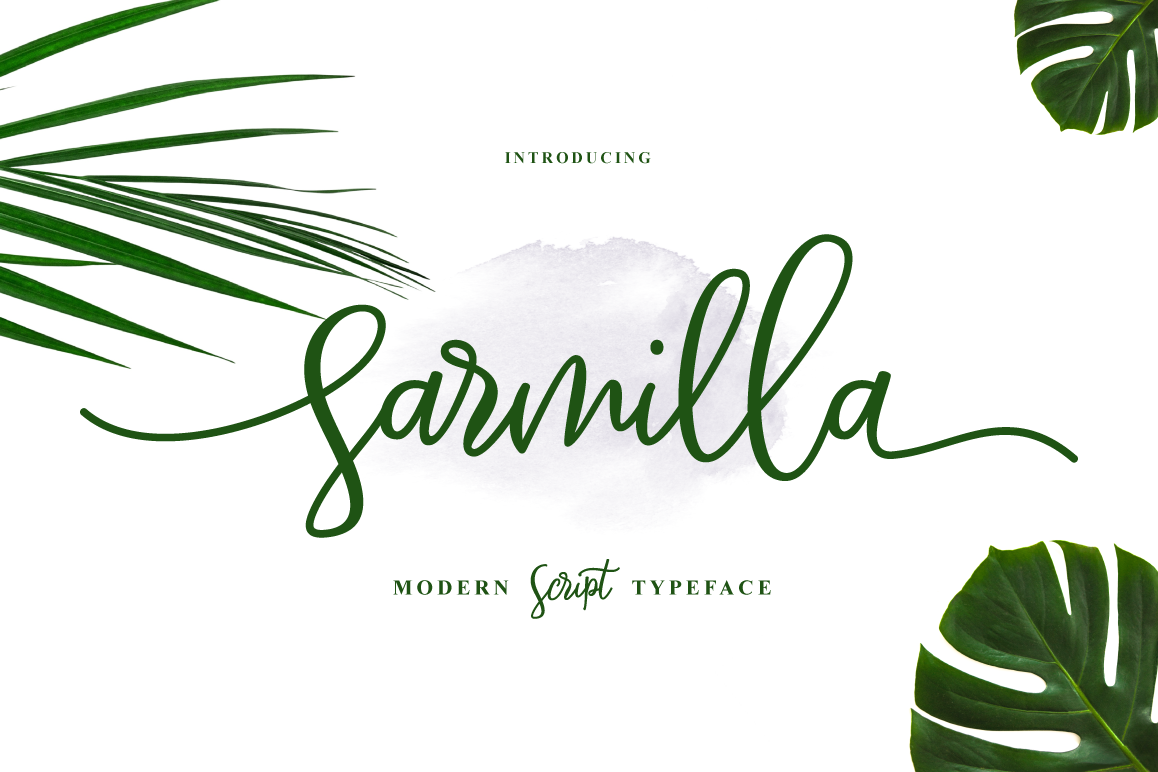
Sarmilla Script
Sarmilla Script is a new fresh & natural script font with a handwritten style.This font comes to give a natural feel for the designer in working on various projects, So Perfect and beautiful on invitation like greeting cards, branding materials, business cards, quotes, posters, Logos, Greeting Cards, Wedding Stationery, and more!Sarmilla Script come with 400 glyphs +. The alternative characters were divided into Several Open Type features such as Swash, Stylistic Sets, Stylistic Alternates, and ligature. The Open Type features can be accessed by using Open Type savvy programs such as Adobe Illustrator, Adobe InDesign, Adobe Photoshop Corel Draw X version, And Microsoft Word. And this has given PUA Unicode Font (specially coded fonts). so that all the alternate characters Easily can be accessed in full by a craftsman or designerFeatures :
• Initial Alternates
• Standard ligatures
• Stylistic sets
• Basic Latin A-Z and a-z
• International Symbols Support